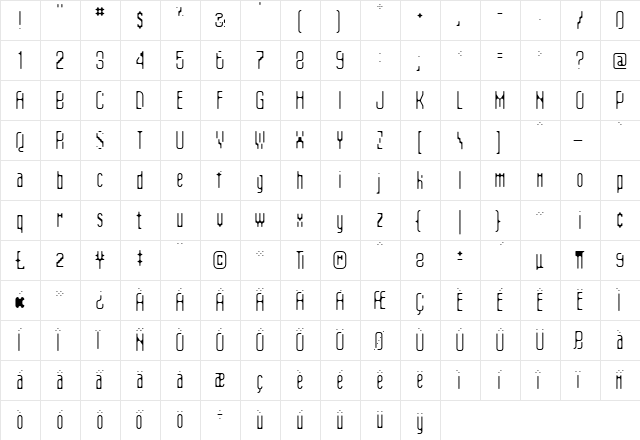
Matica Subnormal Font Preview
Matica Subnormal
Design Context for Matica Typeface
Matica offers clean, dependable letterforms without strong stylistic allegiance, making it a practical choice for designers who need flexibility.